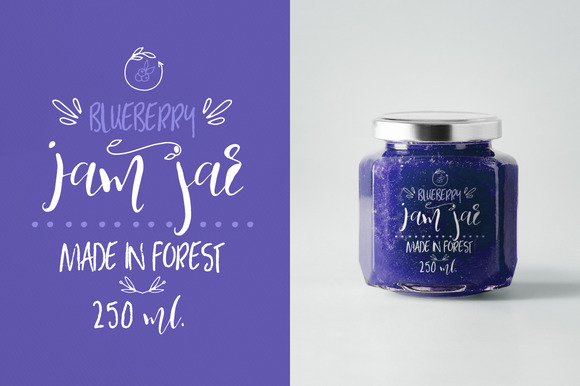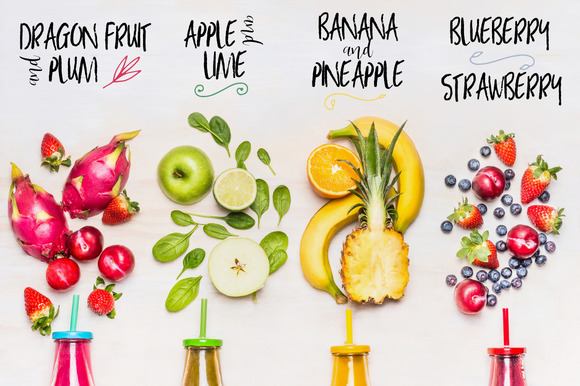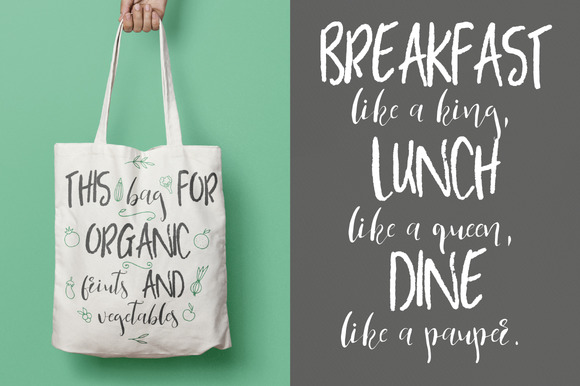
Story of Yellow Lime Font
About Story of Yellow Lime Font
Story of Yellow Lime is a lovely Font Duo.
This script comes with alternative letters. Very suitable for book covers, stationery, greeting cards, posters, logos, and much more!